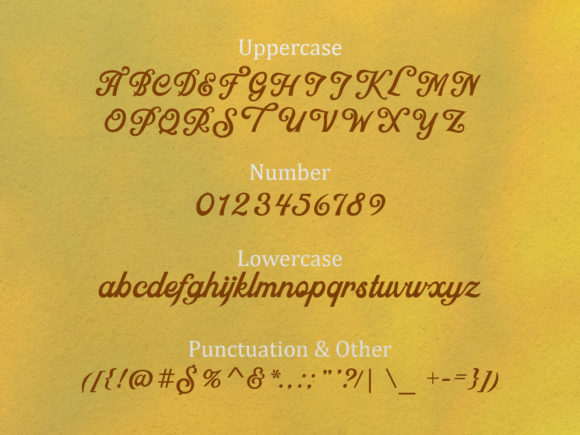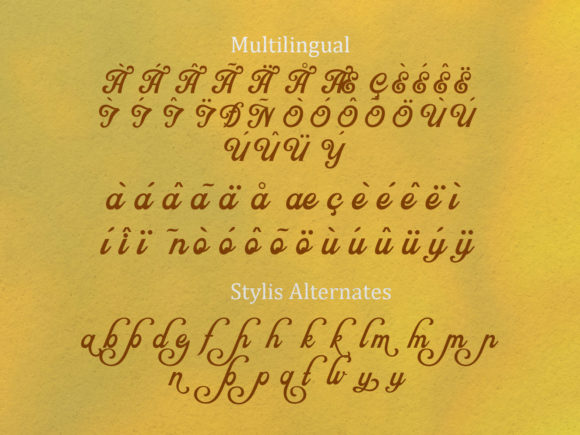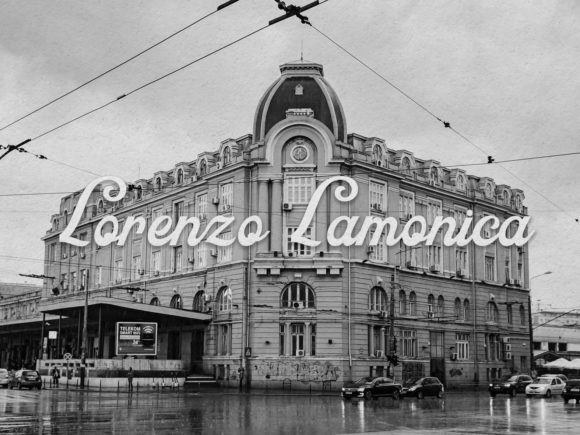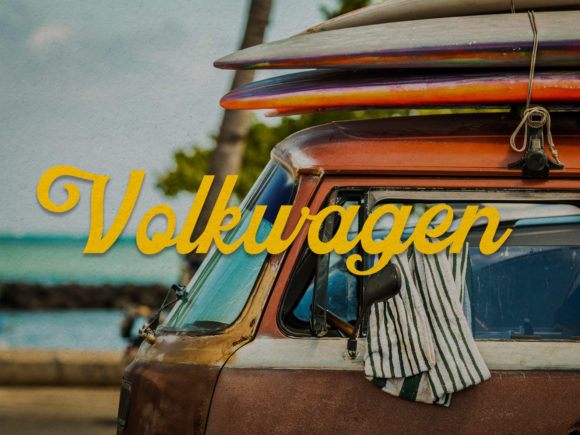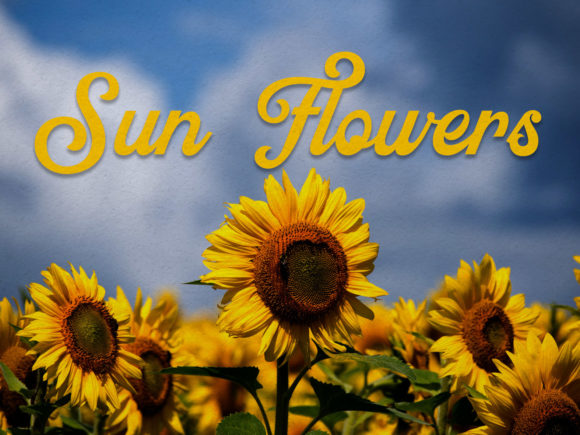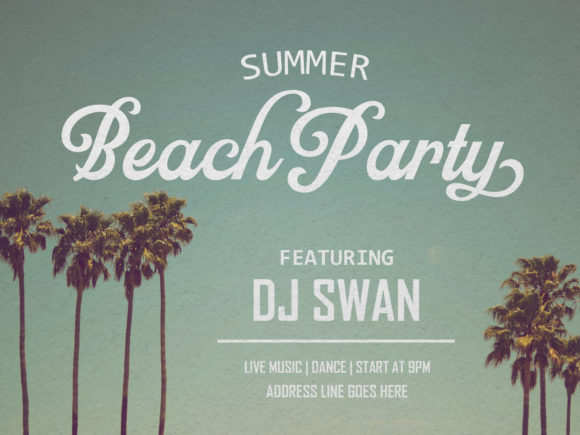
Chelsey Font: Elevate Your Designs with a Timeless Script Font
In the world of typography, few fonts manage to convey a sense of classic elegance and modern dynamism simultaneously. Chelsey Font is one such exceptional typeface that has captured the hearts of designers and crafters alike. This beautiful script font is not just a stylish addition to your design arsenal; it’s a statement maker. With its strong, confident, and dynamic appearance, Chelsey Font can instantly elevate your projects, adding a nostalgic charm that resonates with audiences.
The Essence of Chelsey Font
Chelsey is a classic and beautiful script font that exudes a sense of sophistication and fluidity. Its elegant strokes and harmonious letter spacing make it perfect for a wide range of design applications, from branding and advertising to packaging and digital media. Whether you’re working on a vintage-inspired project or aiming for a contemporary look, Chelsey seamlessly adapts, bringing a touch of class and uniqueness to your creations.
Key Features of Chelsey Font
- Classic yet Dynamic: Chelsey strikes a perfect balance between timeless elegance and modern appeal. Its dynamic strokes and fluid connections give it a lively feel, making it stand out in any design.
- Strong and Confident: The bold and assertive presence of Chelsey Font makes it ideal for headlines, titles, and any design element where you want to make a statement.
- Nostalgic Character: With its classic script style, Chelsey adds a nostalgic touch to your designs, evoking memories and emotions that can help create a deeper connection with your audience.
- Versatility: Chelsey is incredibly versatile, suitable for a variety of projects including branding, posters, invitations, digital media, and more.
- Easy to Read: Despite its elegant and dynamic nature, Chelsey maintains excellent readability, ensuring your message is conveyed clearly and effectively.
Uses of Chelsey Font
The versatility of Chelsey Font makes it a valuable asset for designers across various fields. Here are some popular uses:
- Branding and Logotypes: Chelsey’s unique and memorable style makes it perfect for creating distinctive brand identities.
- Advertising and Marketing Materials: Use Chelsey to add a touch of elegance and professionalism to your ads, brochures, and promotional materials.
- Packaging Design: Stand out on store shelves with Chelsey’s classic yet eye-catching style, ideal for product packaging.
- Digital Media: From website headers to social media graphics, Chelsey can enhance your digital presence with its stylish appeal.
- Crafting and DIY Projects: For crafters, Chelsey can add a personalized and sophisticated touch to handmade cards, journals, and other craft projects.
Tips for Using Chelsey Font Effectively
To maximize the impact of Chelsey Font in your designs, consider the following tips:
- Pair with Complementary Fonts: Chelsey pairs well with clean sans-serif fonts for body text or contrasting script fonts for a unique look.
- Adjust Letter Spacing: For a more vintage feel, increase letter spacing slightly. For a modern look, keep it tight.
- Experiment with Colors: While Chelsey looks stunning in classic black and white, don’t be afraid to experiment with colors that match your brand or project’s theme.
- Consider Size and Weight: Use Chelsey in bold sizes for headlines and perhaps a lighter weight for body text or supporting information.
| Author | Typecase |
Chelsey Font is more than just a typeface; it’s a design companion that can transform your projects with its classic beauty and dynamic presence. Whether you’re a professional designer or a crafting enthusiast, Chelsey offers the perfect blend of nostalgia and modernity, making it an excellent choice for a wide range of creative endeavors. By incorporating Chelsey into your designs, you’re not just choosing a font; you’re adding a touch of timeless elegance and a dash of personality that can make your work truly unforgettable.